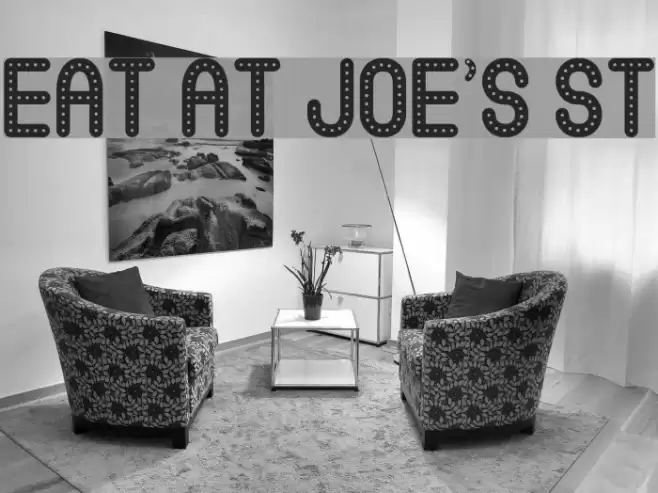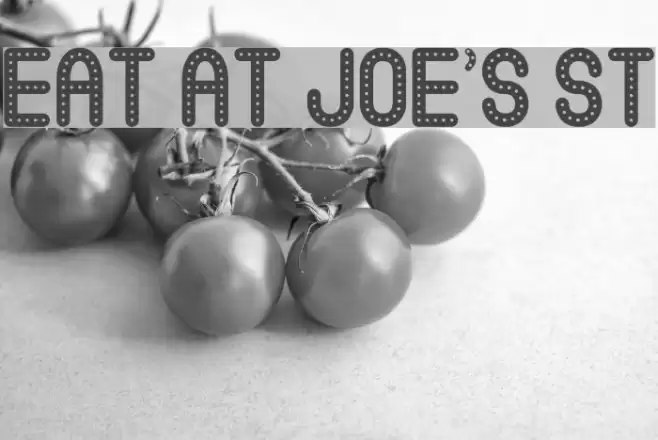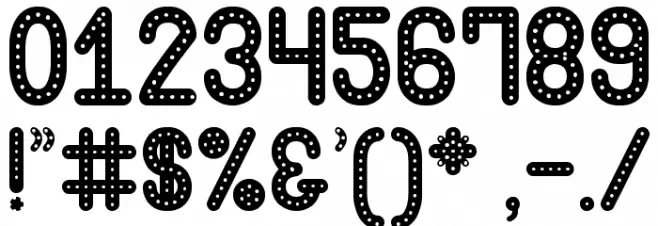
Eat at Joe's St Font
Eat at Joe's St Description
This font features a bold, decorative style with a unique dotted pattern running through each character, giving it a playful and eye-catching appearance. The uppercase and lowercase letters maintain a consistent width, contributing to a uniform look. The numbers and special characters are designed with the same dotted motif, ensuring a cohesive aesthetic across all elements. The font's boldness and decorative nature make it ideal for projects that require a strong visual impact. Its distinct style is reminiscent of vintage marquee lights, adding a nostalgic yet modern touch to any design.
A bold, decorative font with a dotted pattern, perfect for eye-catching designs from Decorative fonts.
- Proposed Projects: Ideal for signage, posters, event invitations, and branding projects that require a playful and bold statement.
- Overall Style: Vintage